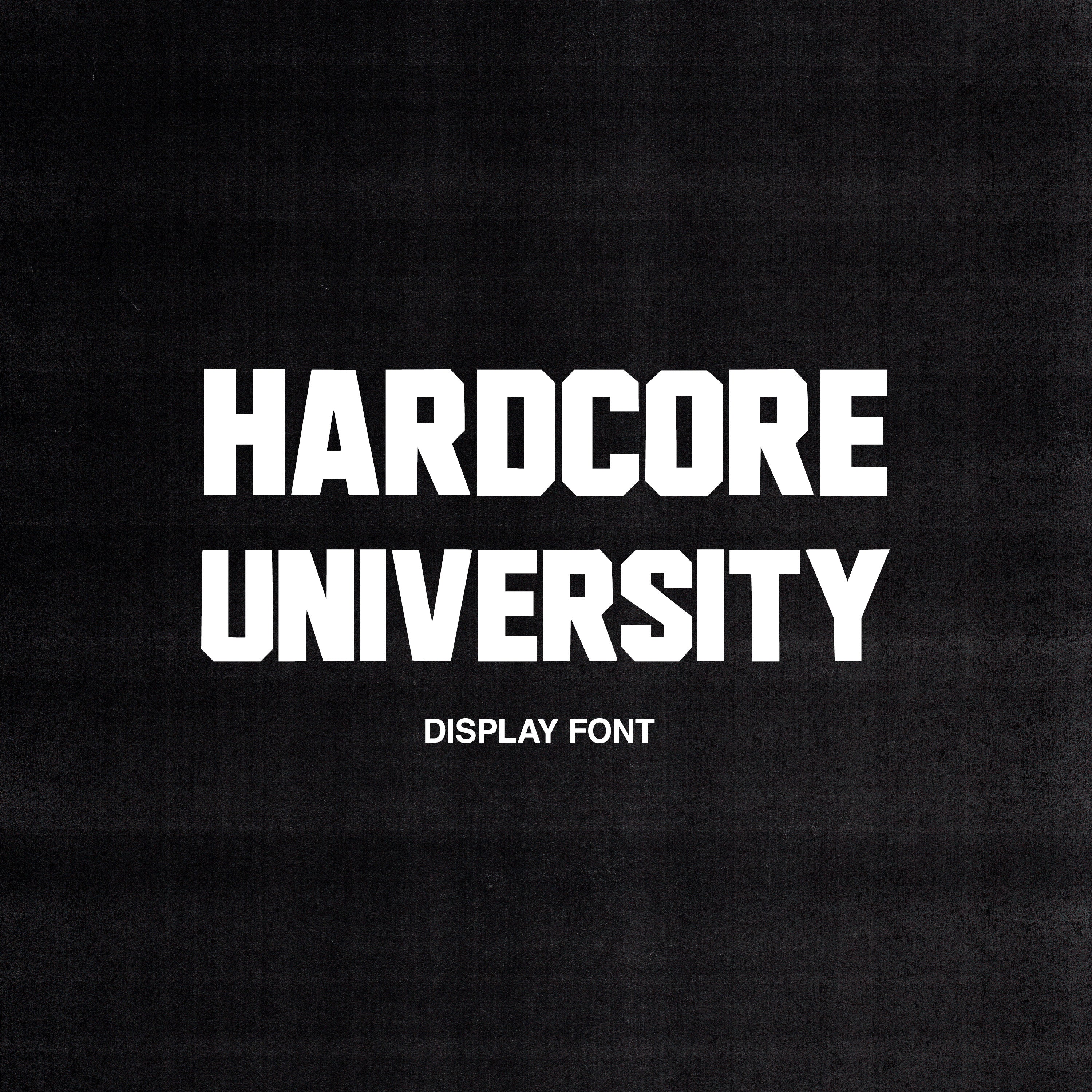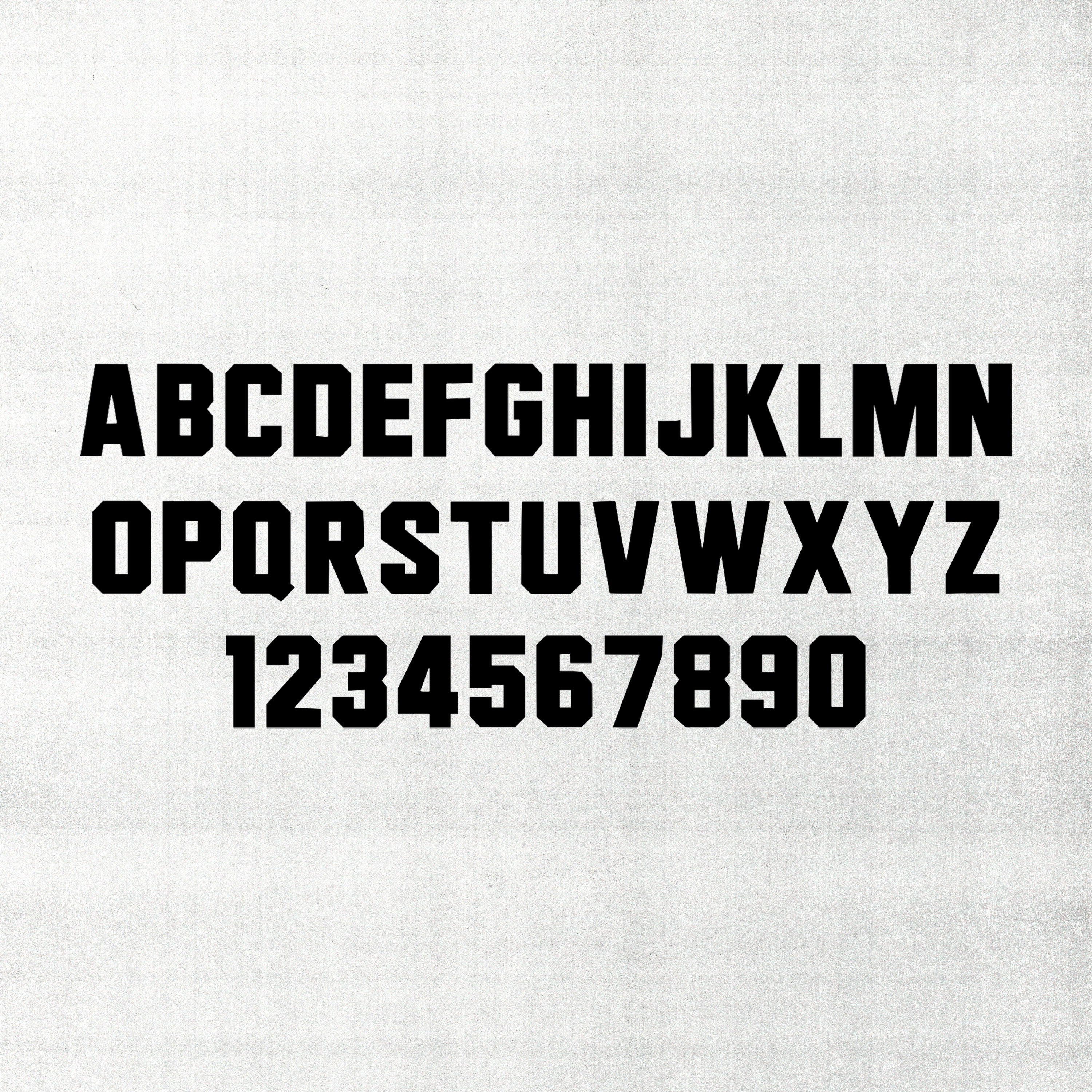
HARDC0RE_UNIVERSITY DISPLAY FONT
Bold, loud, unapologetic.
HARDC0RE UNIVERSITY is a heavy varsity-inspired typeface. Perfect for merch, posters, cover art, or anything that needs to hit hard from the first glance.
- All caps + numbers
- One weight, full impact
HARDC0RE_UNIVERSITY DISPLAY FONT is a bold, varsity-inspired typeface featuring all caps and numbers, available in one weight for full impact. It is provided in .OTF and .TTF formats, suitable for both print and digital design.